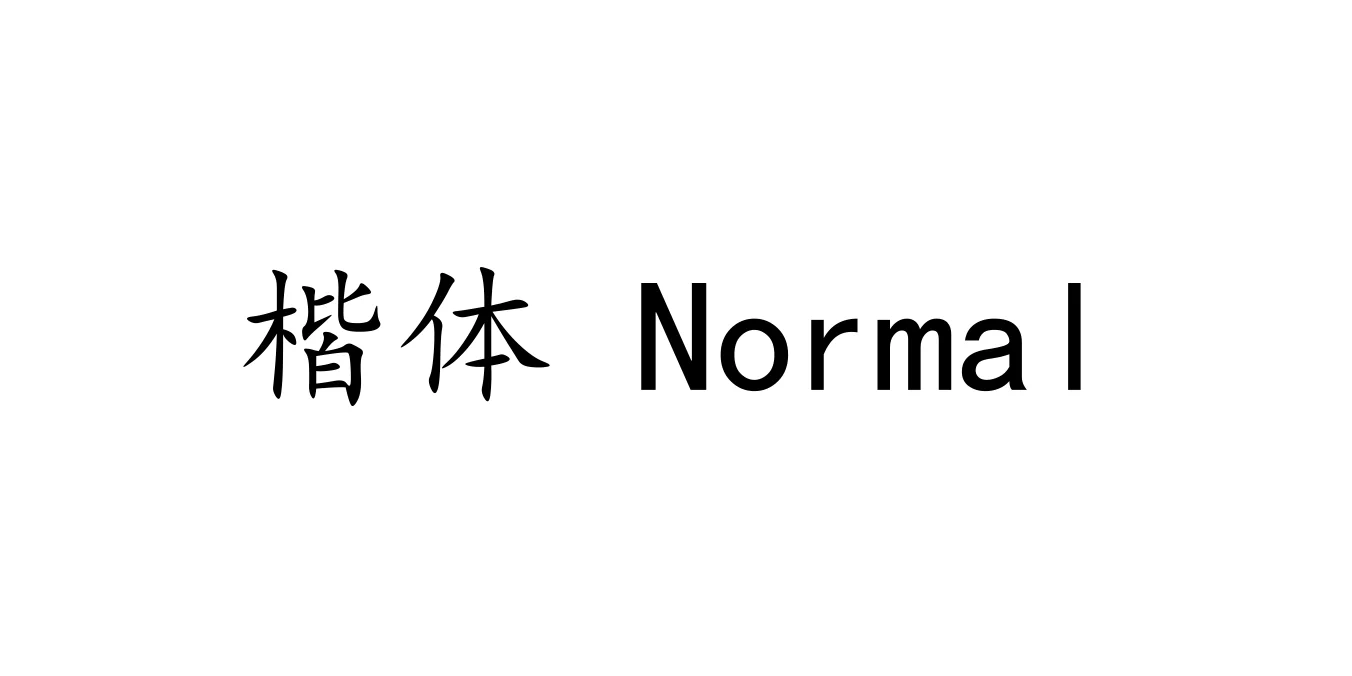
楷体 Normal
Designed by Beijing ZhongYi Electronics Co.
| Category | Calligraphic / Script (Chinese) |
| Designer | Beijing ZhongYi Electronics Co. |
| Similar Fonts | SimKai, STKaiti, Adobe Kaiti, FZKai |
KaiTi Normal is a cornerstone of Chinese digital typography, meticulously modeled after the traditional Kai style of calligraphy which originated during the Han dynasty and flourished in the Tang dynasty. This typeface is characterized by its elegant, brush-like strokes, featuring visible entry and exit points that mimic the movement of a physical brush. Its balanced proportions and clear structure make it one of the most readable and aesthetically pleasing calligraphic fonts available for simplified Chinese characters.
The digital adaptation of KaiTi became globally recognized through its integration into the Microsoft Windows operating system as a core system font. It bridges the gap between historical handwriting and contemporary typesetting, offering a formal yet artistic appearance. It is the definitive choice for projects that require a sense of cultural heritage, authority, and classical beauty, frequently used in both professional publishing and official administrative contexts.
楷体 Normal Best Uses
The standard choice for official government certifications and legal letters.
Widely used in textbooks and literacy materials for teaching Chinese character structure.
Perfect for printing poetry, historical essays, and cultural publications.
Adds a sophisticated and traditional touch to invitations and greeting cards.